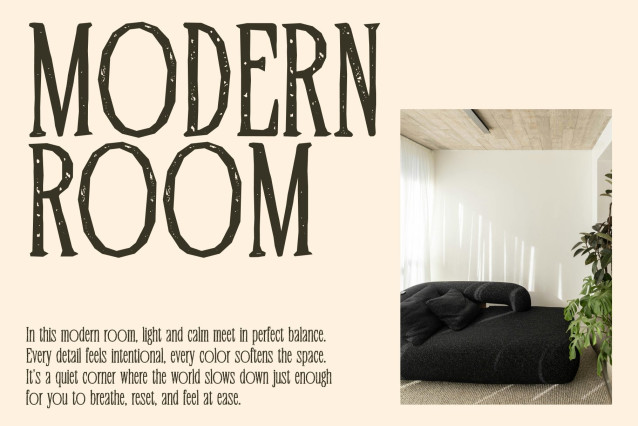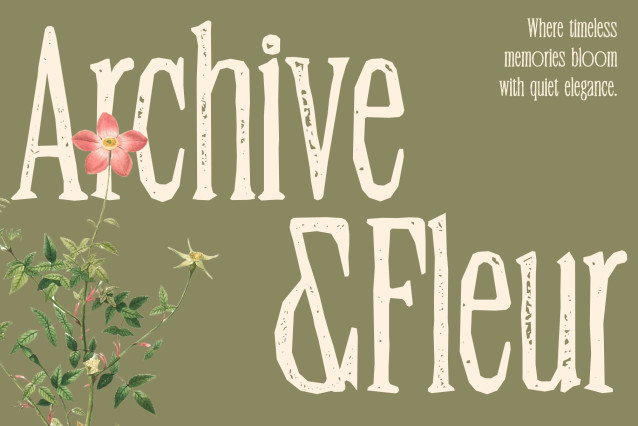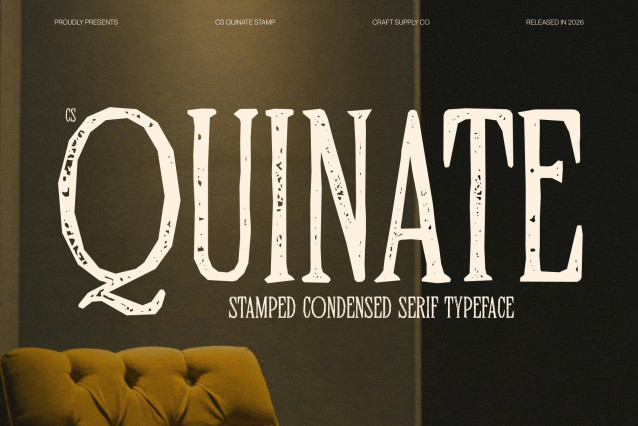
CS Quinate Stamp – Condensed Modern Serif Font: Where Contemporary Elegance Meets Vintage Artistry
Long Slim Serifs with Graceful Sophistication
This is a condensed modern serif font crafted with long, slim serifs and graceful contemporary proportions that radiate elegance and refinement. Its sleek structure creates a polished visual rhythm, allowing every composition to feel luxurious, stylish, and highly sophisticated.
Contemporary Style with Refined Presence
This font delivers a typographic voice that feels both fashionable and professional. Its condensed proportions create a strong editorial impact while preserving a soft and graceful appearance, making it ideal for designs that seek exclusivity and artistic sophistication.
Stamped Texture with Vintage Character
This font introduces a handcrafted finish inspired by traditional print techniques. The slightly rough and organic texture adds vintage character, artistic depth, and authentic old-design charm to every letter. This textured detail enriches the refined serif forms with warmth and expressive individuality.